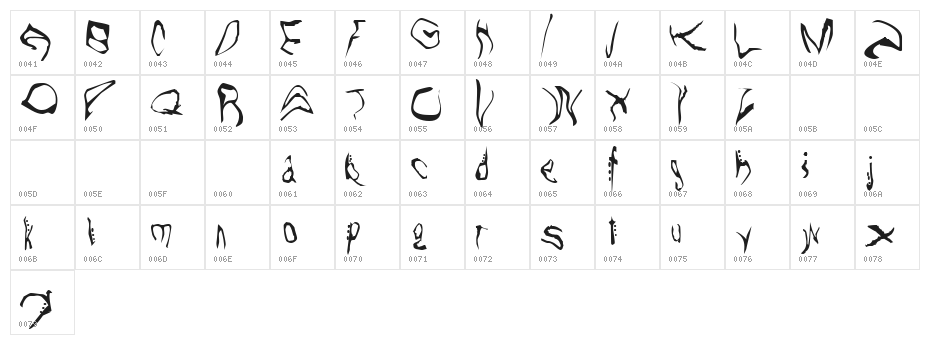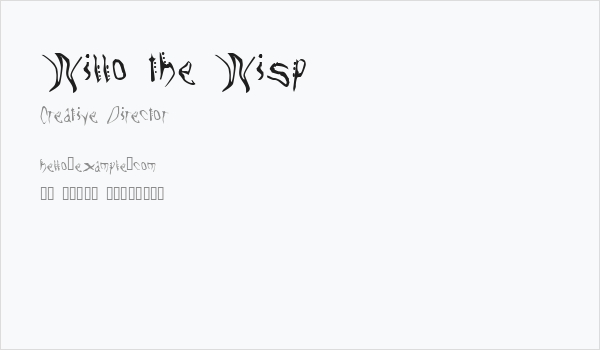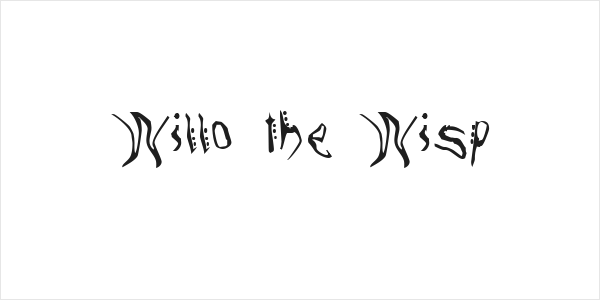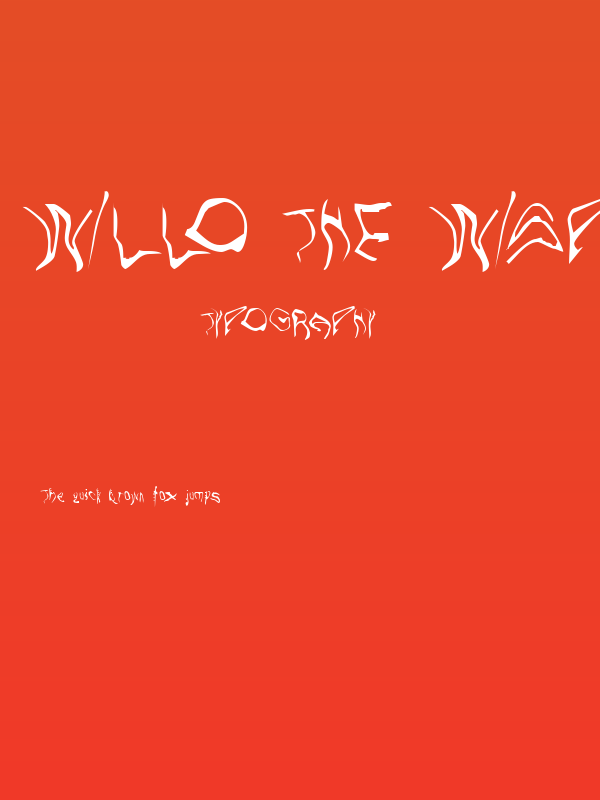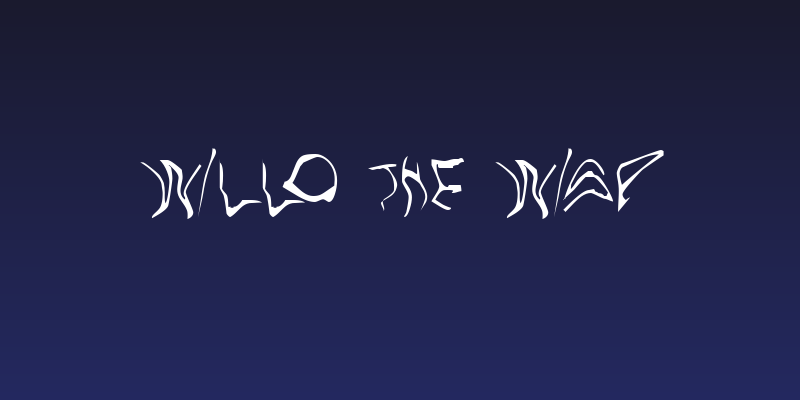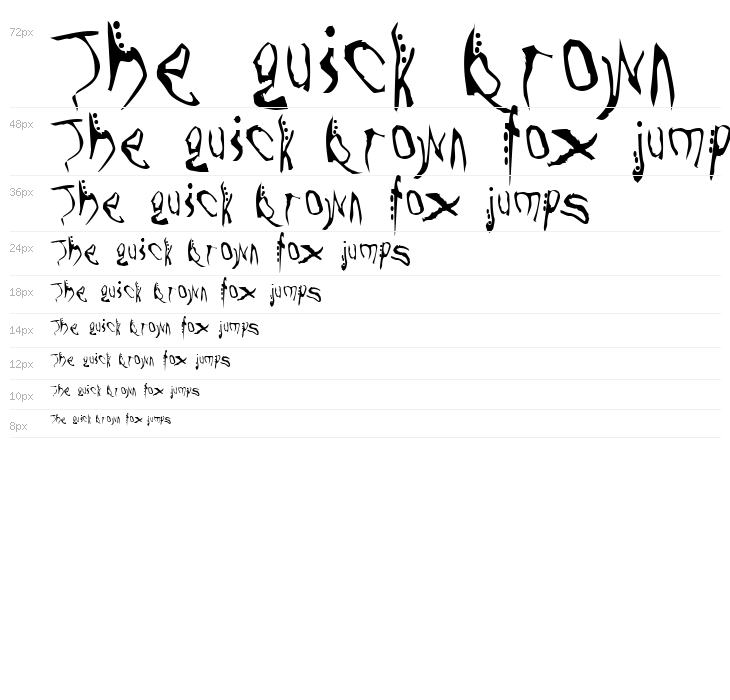
Willo the Wisp Font
Willo the Wisp Description
This font features a whimsical and eerie design, reminiscent of ghostly or mystical themes. The characters have a fluid, organic shape with sharp, pointed edges and irregular curves, giving them a dynamic and unpredictable appearance. The uppercase and lowercase letters maintain a consistent style, with some letters incorporating unique elements like dots or elongated strokes. The numbers and special characters follow the same design principles, ensuring a cohesive look across all glyphs. This font is ideal for projects that require a touch of fantasy or mystery, such as Halloween-themed designs, fantasy book covers, or mystical event invitations.
| Proposed Projects | Halloween-themed designs, fantasy book covers, mystical event invitations. |